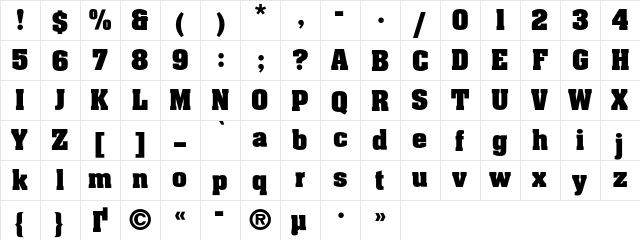
AGAalenBold Regular Font Preview
AGAalenBold Regular
Design Context for AGAalenBold Typeface
AGAalenBold is a composed and adaptable typeface that performs quietly and consistently across a wide range of design contexts. The heavy weight commands attention and anchors typographic hierarchies.